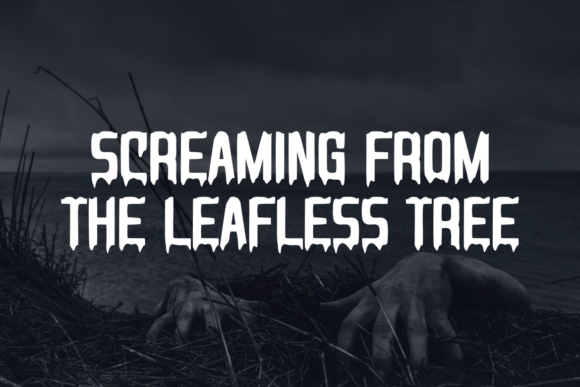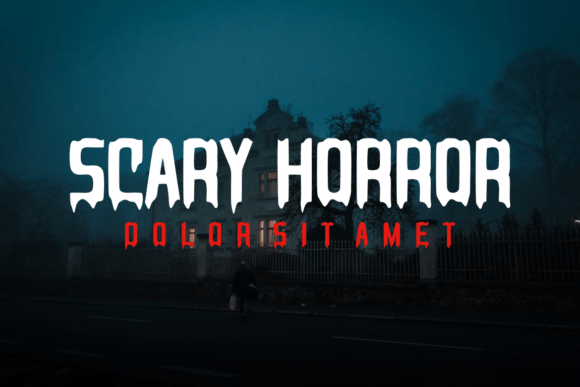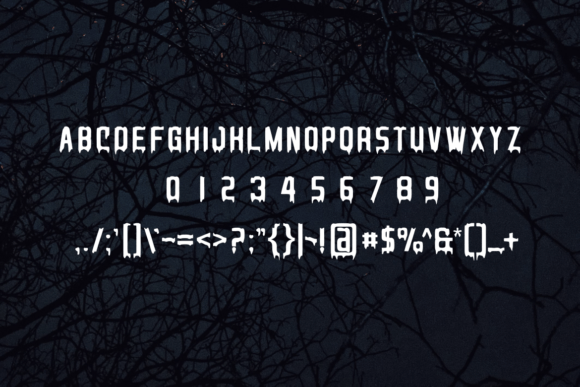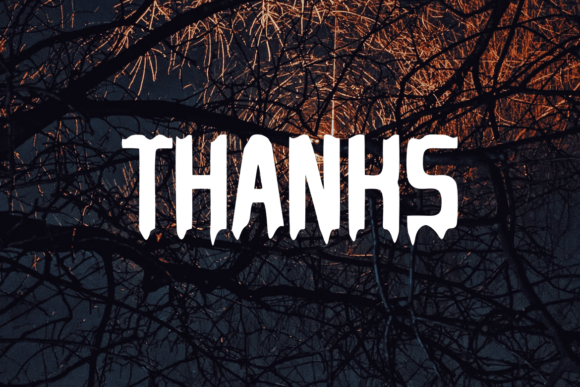
Introduction to Scary Horror Font
Scary Horror is a bold handwritten brush font designed to send chills down your spine.
With its jagged, distorted strokes and sharp edges, itโs perfect for horror movie titles, Halloween flyers, thriller posters, or any design that craves a creepy, dramatic flair .
Key Features of Scary Horror Font
Why Choose Scary Horror Font?